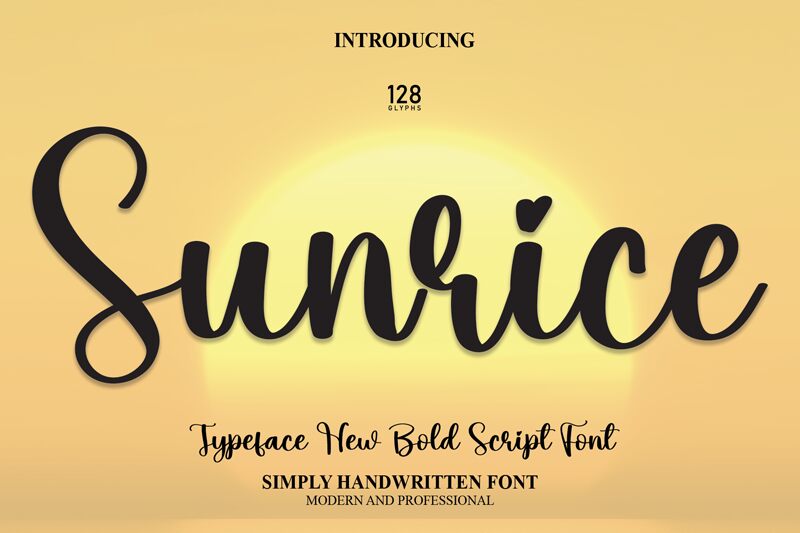
Sunrice
Sunrice, a creation of the talented Scratchones, emerges as a calligraphy font that exudes elegance and fluidity, making it an impeccable choice for those seeking a touch of sophistication in their designs. With its semi-light weight, Sunrice strikes a perfect balance between delicate finesse and readable clarity, ensuring that each character is both distinguished and legible.
The graceful curves and subtle swashes characteristic of Sunrice reflect a modern take on traditional calligraphy, infusing projects with a sense of warmth and personal touch. Its aesthetic appeal lies in the harmonious flow from one letter to the next, giving text a natural and cohesive rhythm.
Perfectly suited for invitations, branding, editorial design, and more, Sunrice is versatile enough to uplift any creative endeavor. Whether you're looking to capture the intimacy of handwritten correspondence or add an artisanal flair to your work, this font's charm will surely make your project stand out with its distinct style and visual harmony.
The graceful curves and subtle swashes characteristic of Sunrice reflect a modern take on traditional calligraphy, infusing projects with a sense of warmth and personal touch. Its aesthetic appeal lies in the harmonious flow from one letter to the next, giving text a natural and cohesive rhythm.
Perfectly suited for invitations, branding, editorial design, and more, Sunrice is versatile enough to uplift any creative endeavor. Whether you're looking to capture the intimacy of handwritten correspondence or add an artisanal flair to your work, this font's charm will surely make your project stand out with its distinct style and visual harmony.